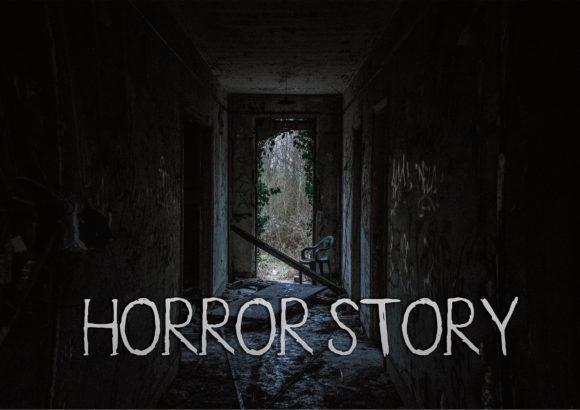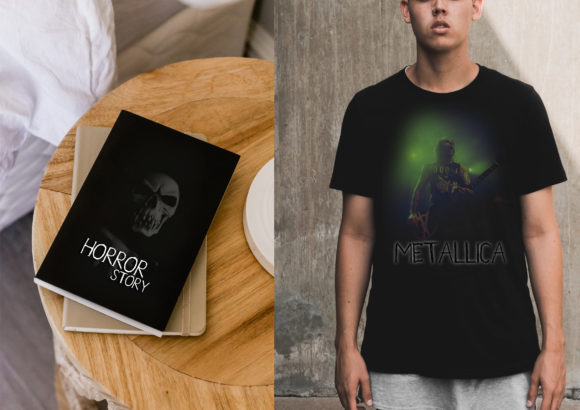
Introducing Annabe Font: The Perfect Addition to Your Spooky Designs
Are you a designer or crafter looking for a unique and eye-catching font to add a touch of drama to your Halloween or October-themed designs? Look no further than Annabe Font! This simple yet scary handwritten font is the perfect addition to any project, and its versatility knows no bounds.
The Characteristics of Annabe Font
Annabe Font is a one-of-a-kind typeface that exudes a sense of eeriness and foreboding. Its handwritten style gives it a personal and organic feel, making it perfect for designs that require a touch of humanity. The font’s simplicity is also one of its greatest strengths, allowing it to be easily paired with a wide range of design elements.
Why Choose Annabe Font for Your Designs?
So, why should you choose Annabe Font for your Halloween or October-themed designs? Here are just a few reasons:
- Instantly adds a dramatic touch: Annabe Font has a way of instantly elevating your designs and adding a sense of drama. Whether you’re creating a spooky invitation or a haunted house flyer, this font is sure to make an impact.
- Perfect for Halloween and October-themed designs: As its name suggests, Annabe Font is specifically designed with Halloween and October-themed designs in mind. However, its versatility also makes it suitable for a wide range of other projects, from autumnal decorations to creepy crafts.
- Limitless creative possibilities: The only limit to what you can create with Annabe Font is your imagination! Whether you’re a seasoned designer or a crafty DIY enthusiast, this font is sure to inspire you to try new and exciting things.
Using Annabe Font in Your Designs
So, how can you use Annabe Font in your designs? Here are a few ideas to get you started:
- Spine-tingling invitations: Create spooky invitations for Halloween parties or haunted house events using Annabe Font. You can add creepy graphics and design elements to really make the invitation stand out.
- Eerie event flyers: Design eye-catching flyers for Halloween events, such as pumpkin carving contests or ghost tours. Annabe Font is sure to add a touch of drama and excitement to your flyers.
- Creepy crafts: If you’re a crafter, you can use Annabe Font to add a spooky touch to your DIY projects. From haunted house decorations to creepy jewelry, the possibilities are endless!
Tips for Getting the Most Out of Annabe Font
To really make the most of Annabe Font, here are a few tips to keep in mind:
- Experiment with different colors: Annabe Font looks great in a range of colors, from bold and bright to muted and pastel. Experiment with different colors to find the perfect look for your design.
- Pair with creepy graphics: To really make your designs stand out, try pairing Annabe Font with creepy graphics and design elements. This could include things like spiders, bats, or jack-o-lanterns.
- Play with font sizes: Annabe Font looks great in a range of font sizes, from large and bold to small and subtle. Experiment with different font sizes to add visual interest to your designs.
In conclusion, Annabe Font is a simple yet scary handwritten font that’s perfect for adding a dramatic touch to your Halloween or October-themed designs. Its versatility and limitless creative possibilities make it a must-have for designers and crafters alike. So why not give Annabe Font a try and see what spooky creations you can come up with?